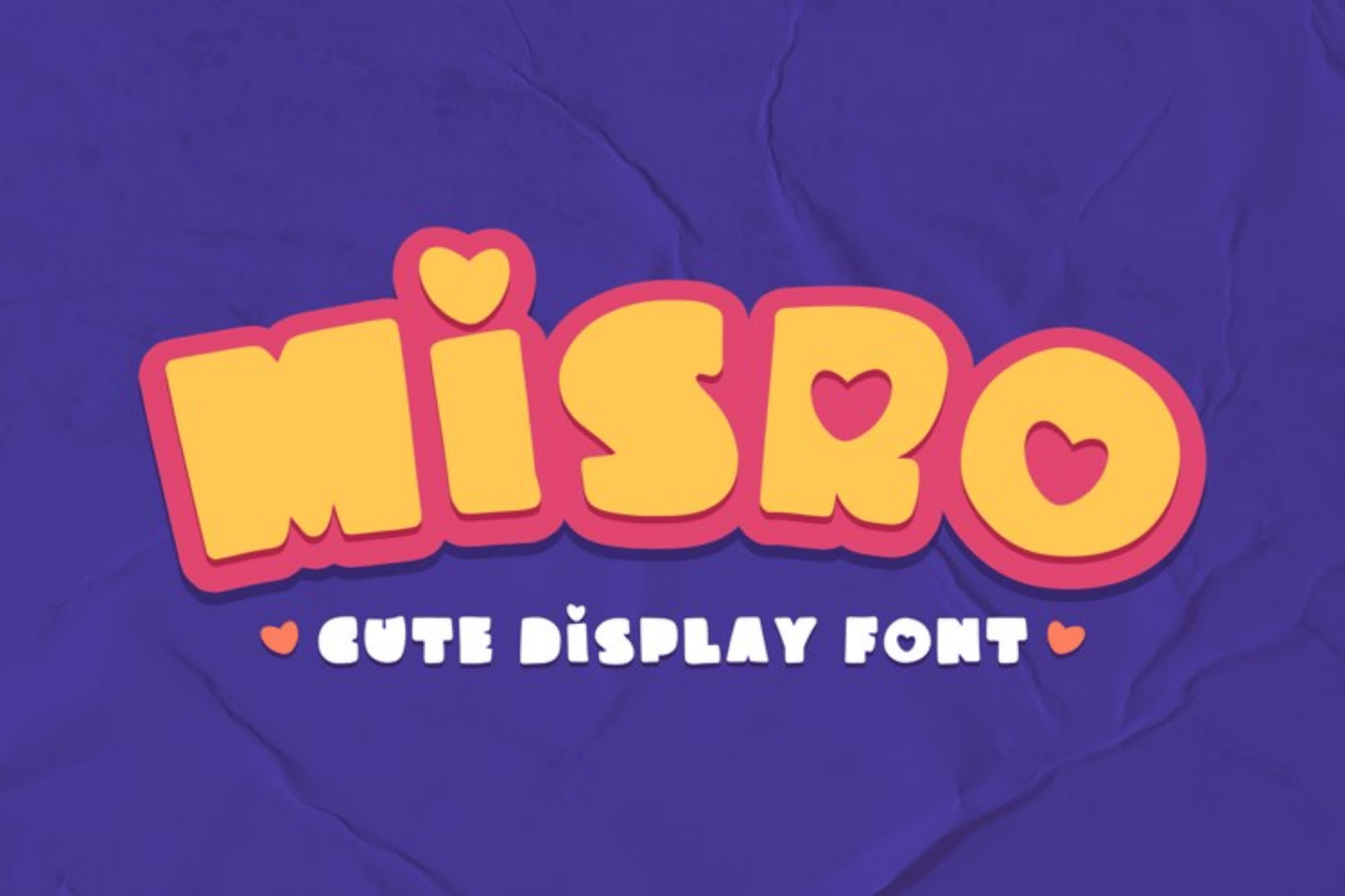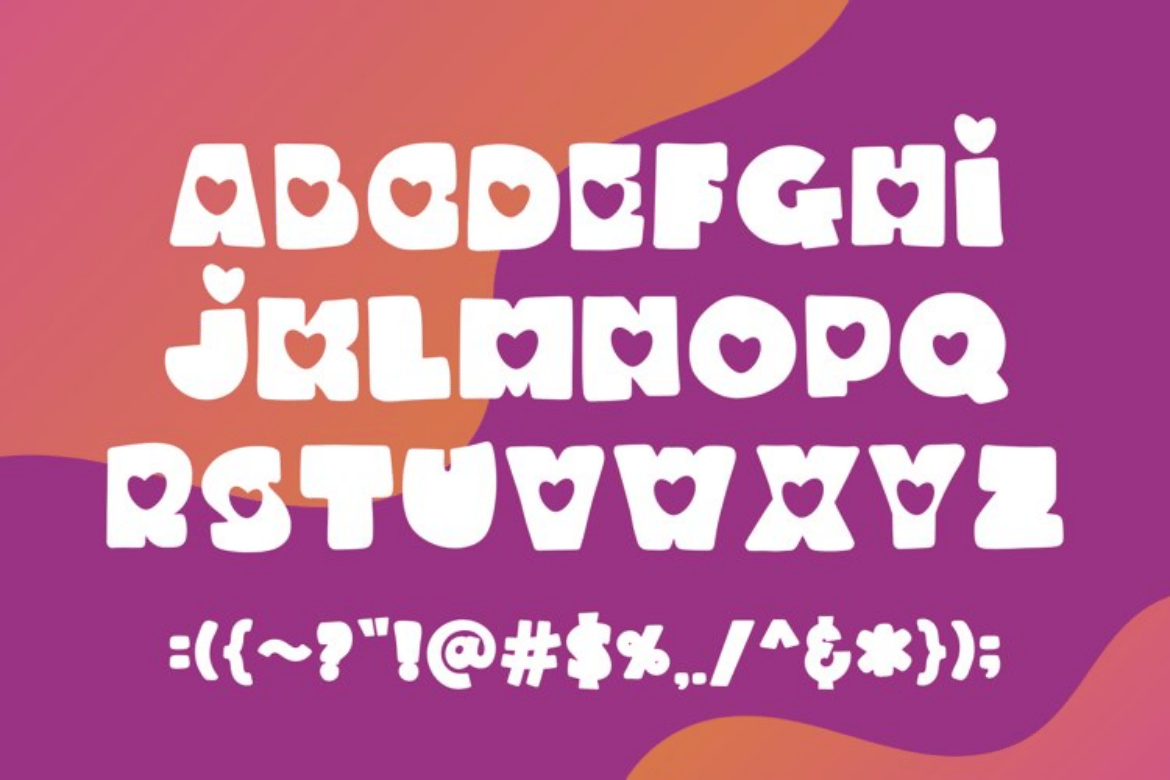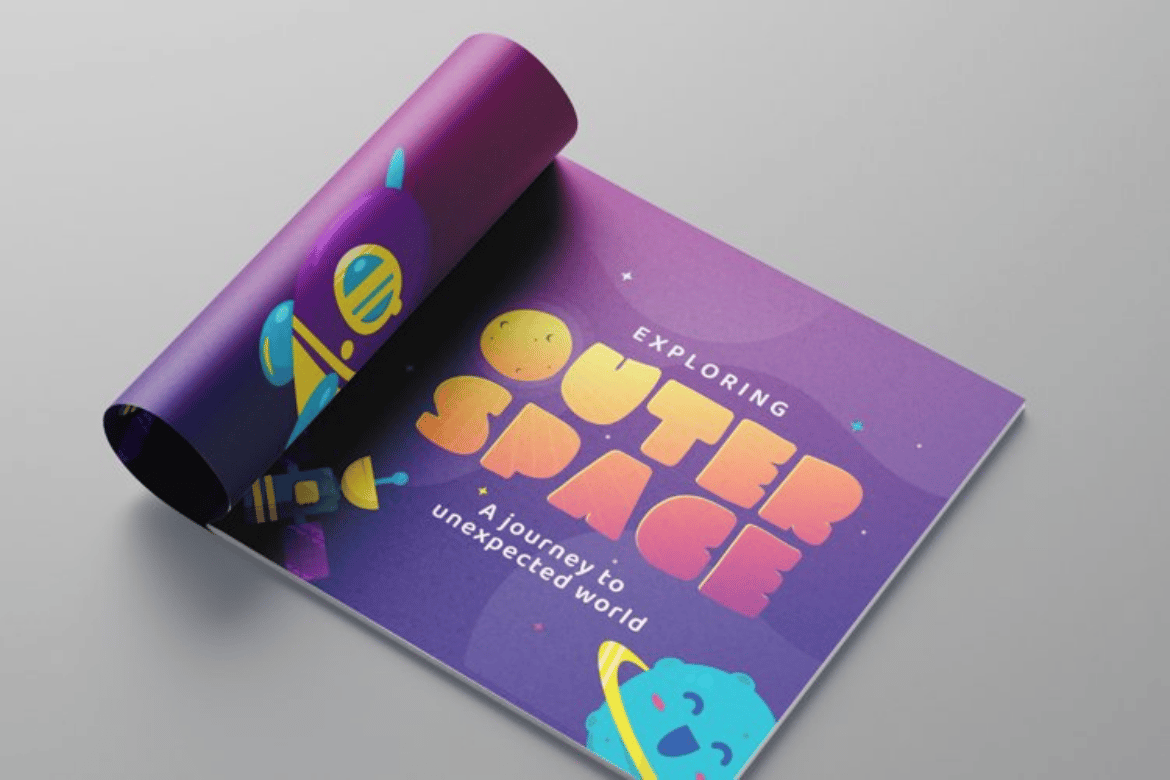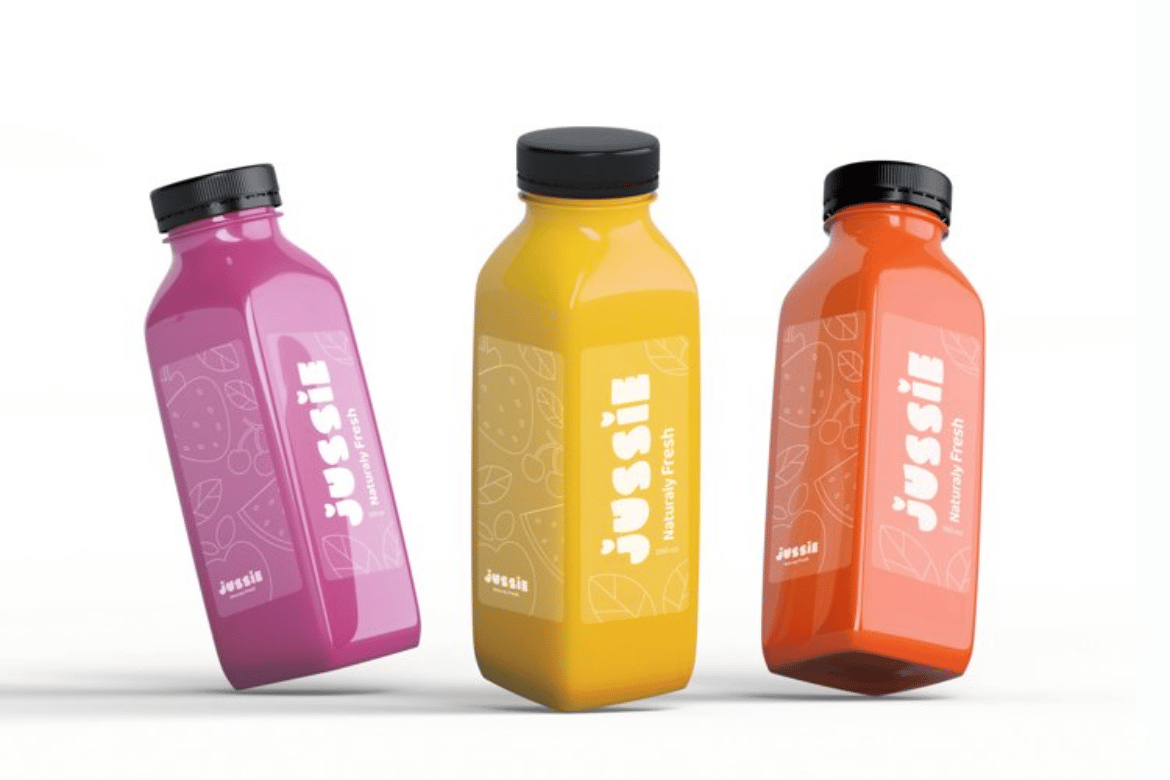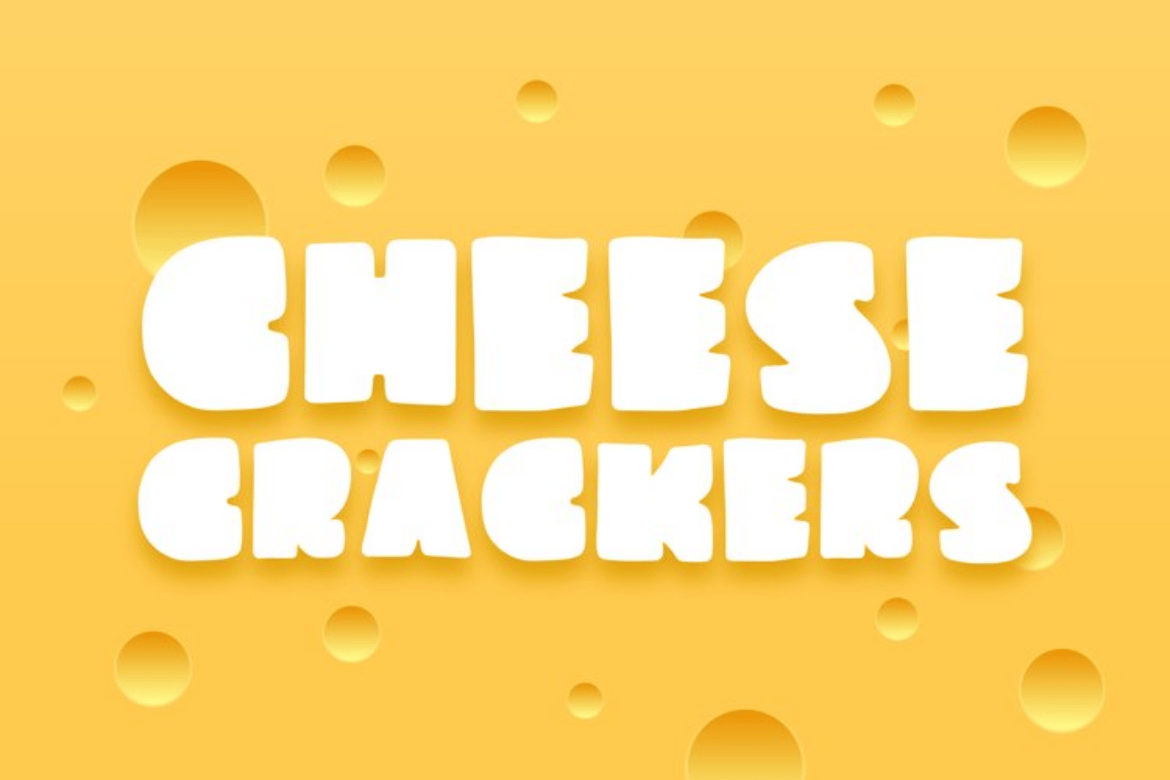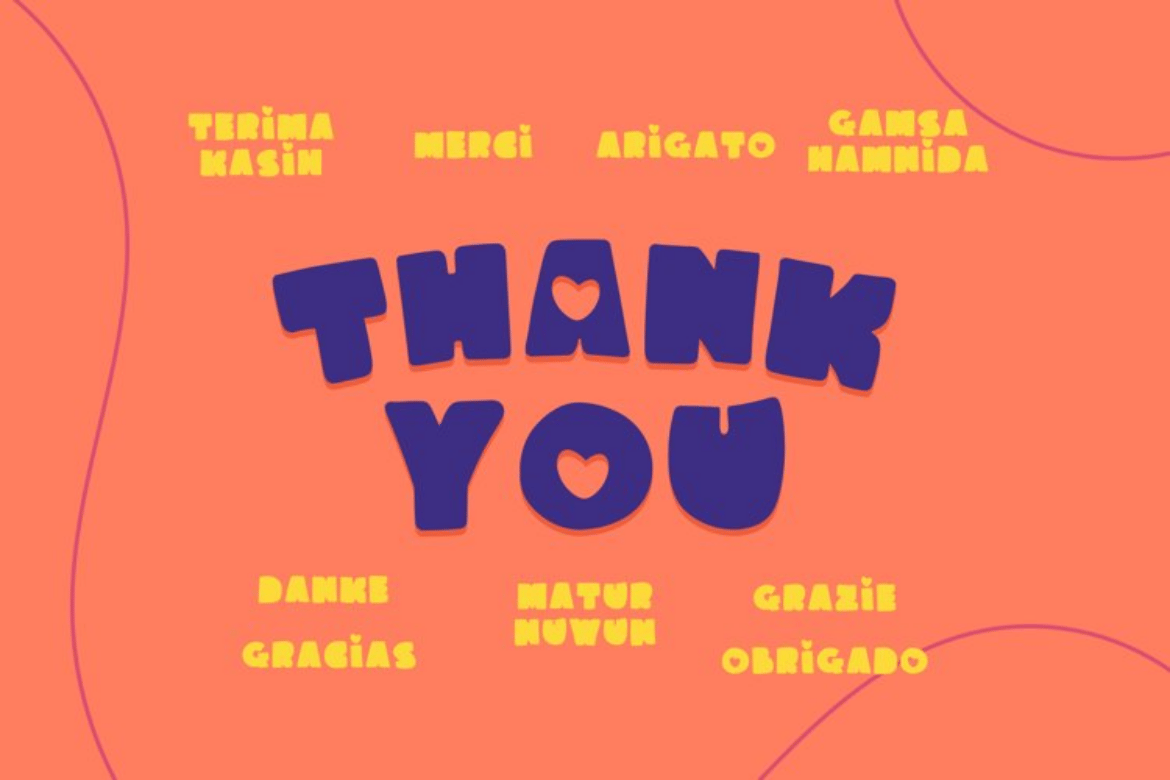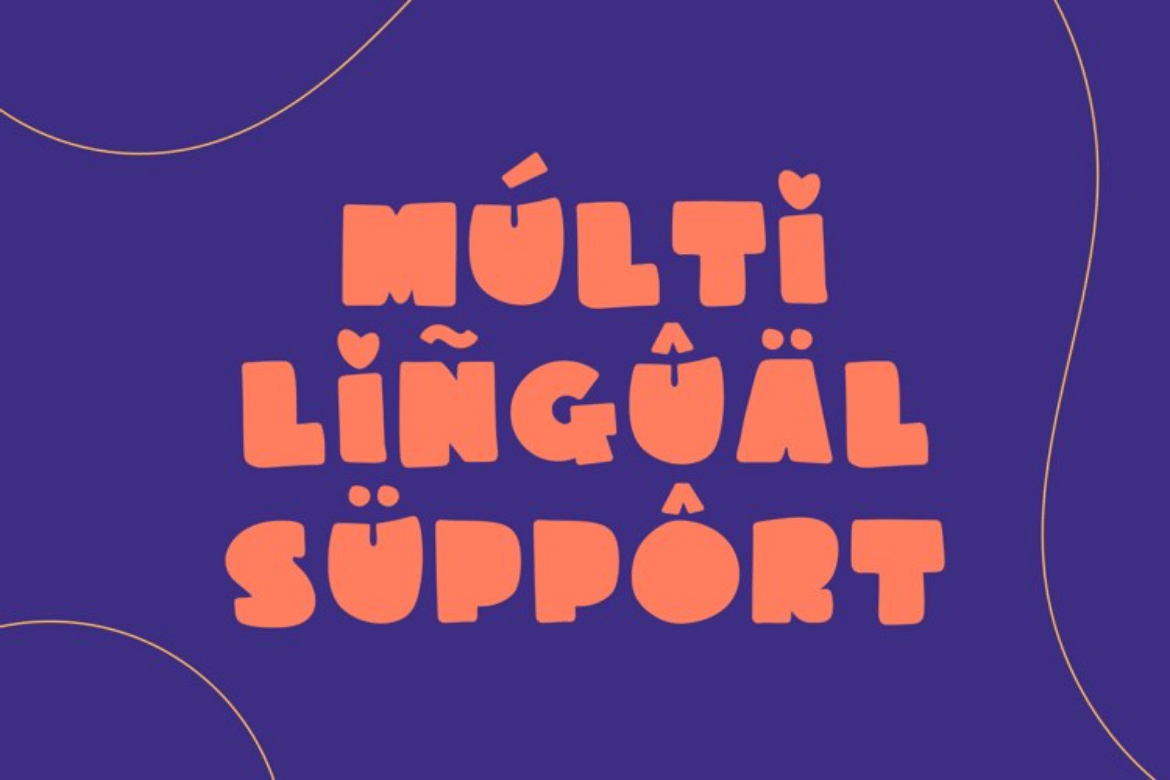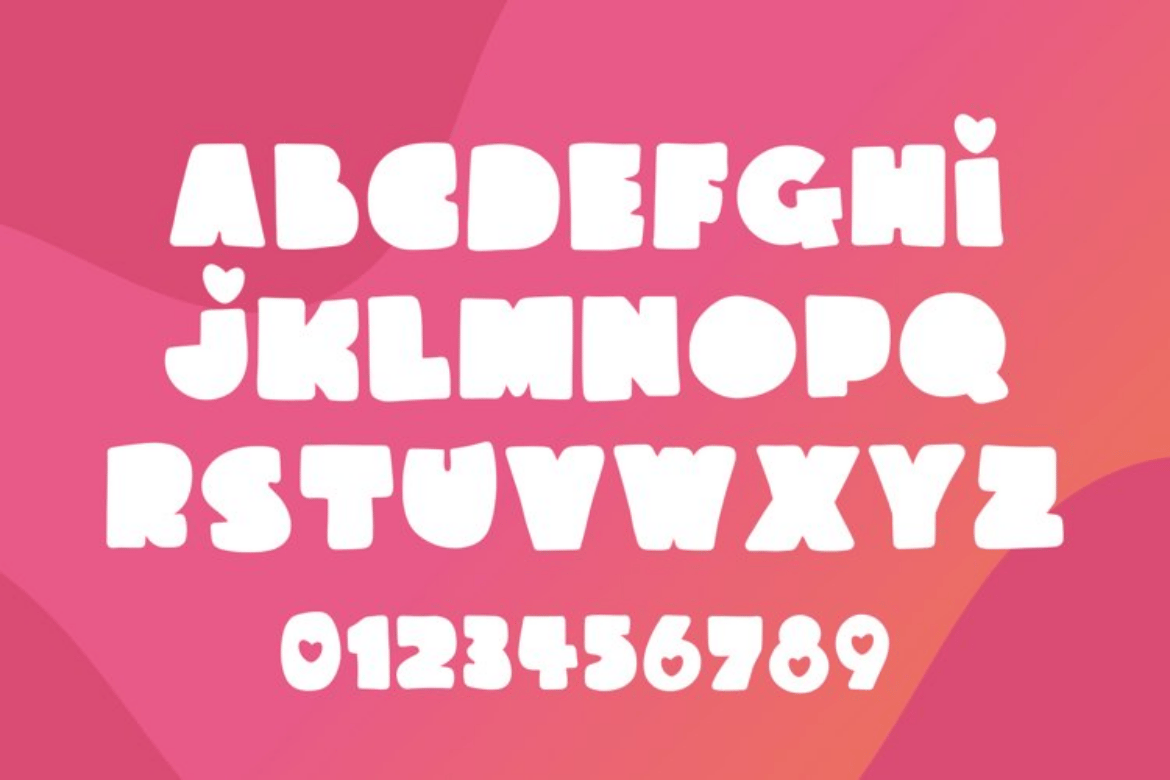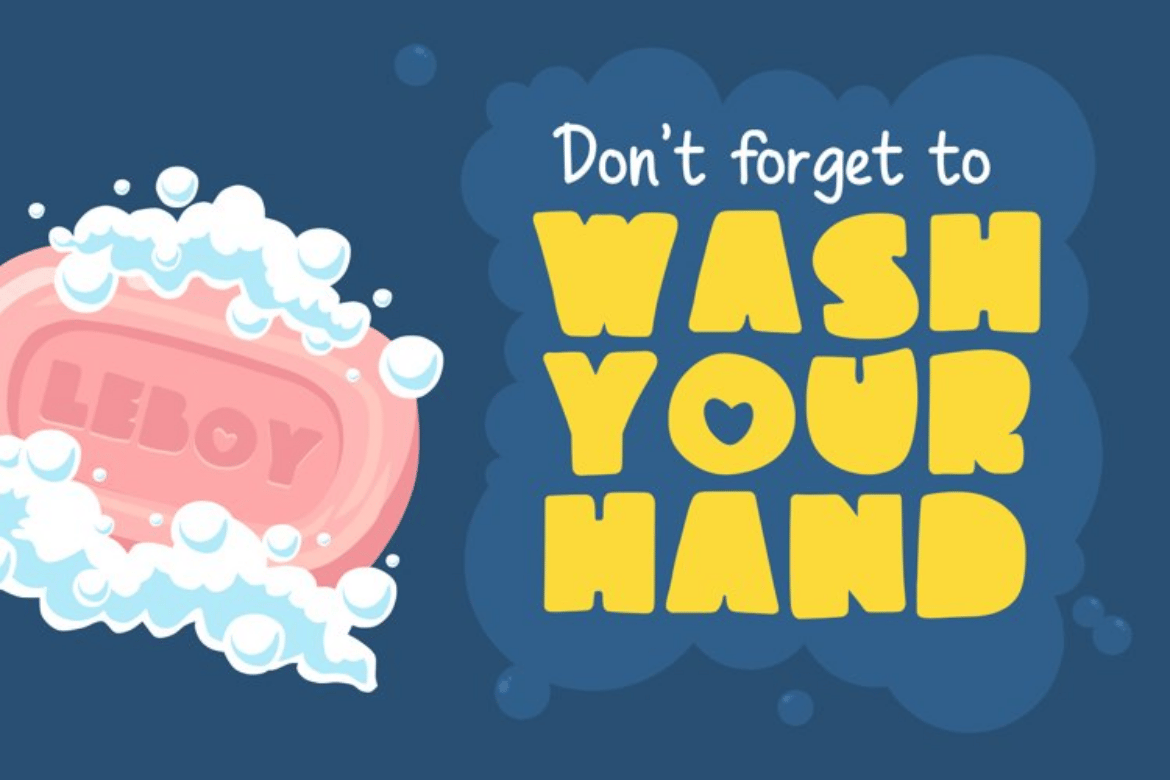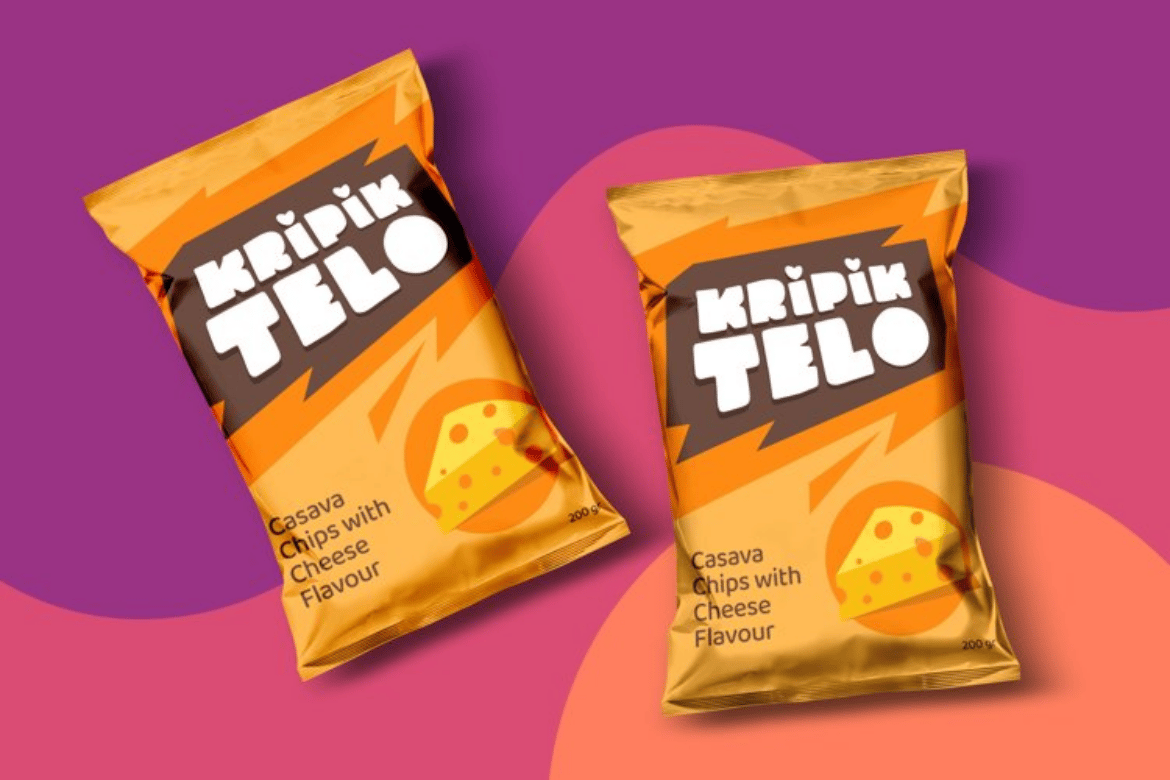
Misro – Cute Display Font
Introducing Misro a cute display font with bold style. Perfectly match with your fun design stuff such as logo, birthday card, poster, tshirt, packaging or any playful design themed
- uppercase and lowercase
- numbers and punctuation
- multilingual support